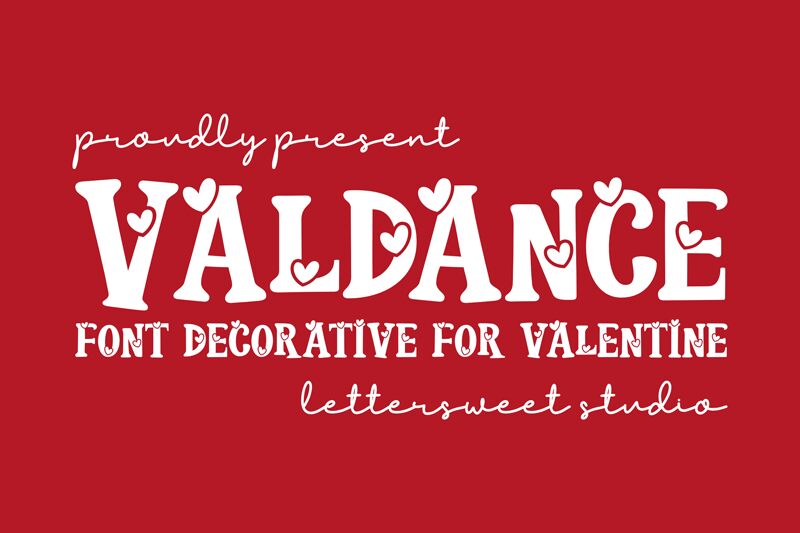
Valdance font by Lettersweet Studio is a free decorative holiday valentine typeface that turns every word into a little love note. Chunky, slightly wavy letters feel hand-cut, with bold heart shapes tucked into counters and perched on tops, giving the text a bouncy, handmade charm. The solid, inky strokes read clearly even at smaller sizes, while the playful silhouettes keep things light and romantic rather than overly formal.
Using Valdance, your Valentine’s cards, classroom printables, party invitations, stickers, social posts, gift tags, and candy packaging instantly feel more fun and heartfelt. This free font shines in short phrases and headlines where its heart details can really show. Pair it with a simple rounded sans serif for body text, and let Valdance handle the sweet, attention-grabbing words.